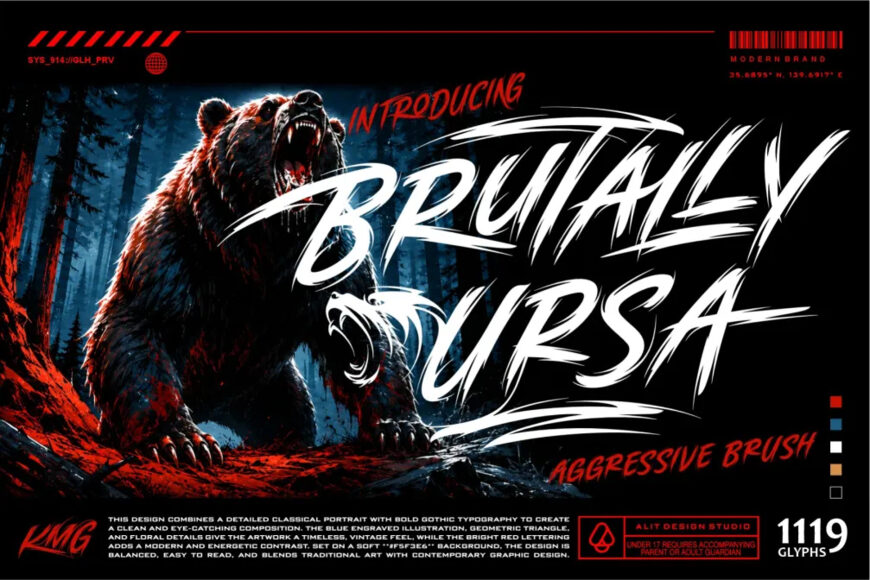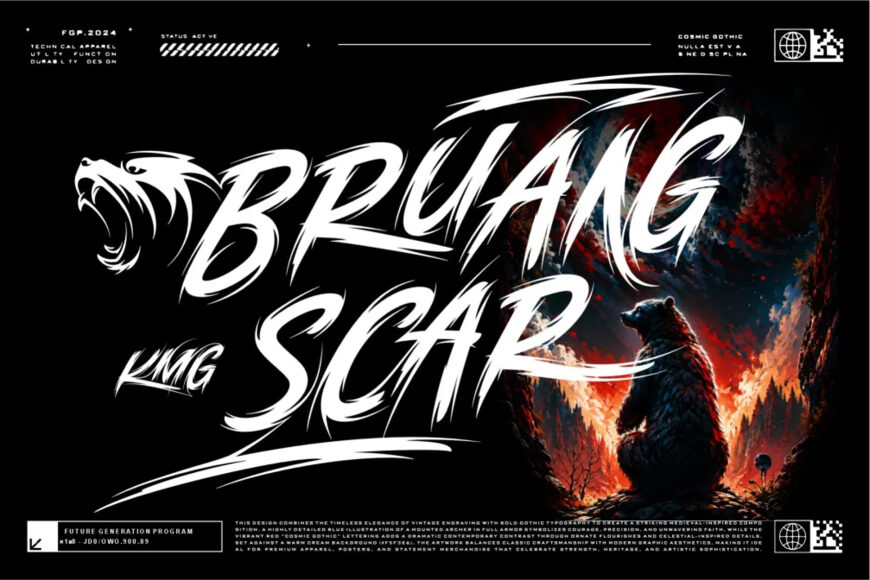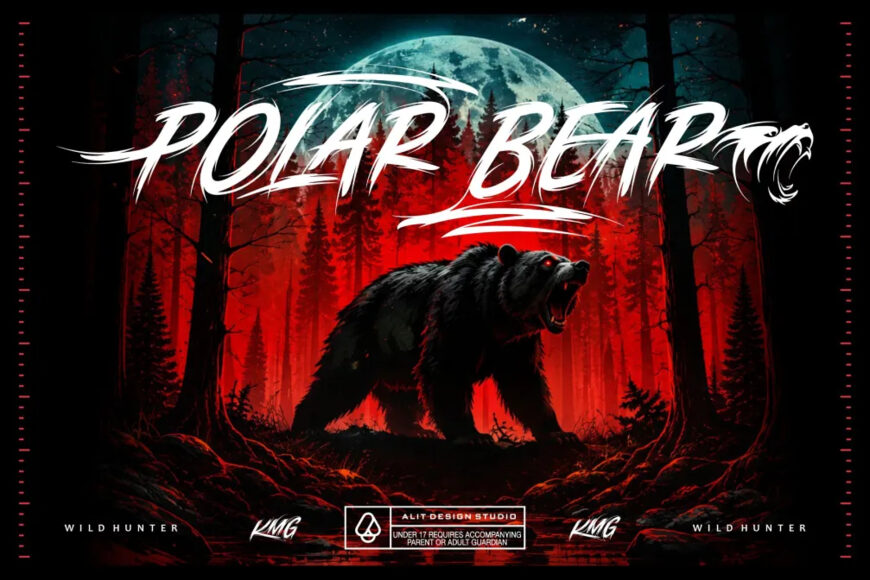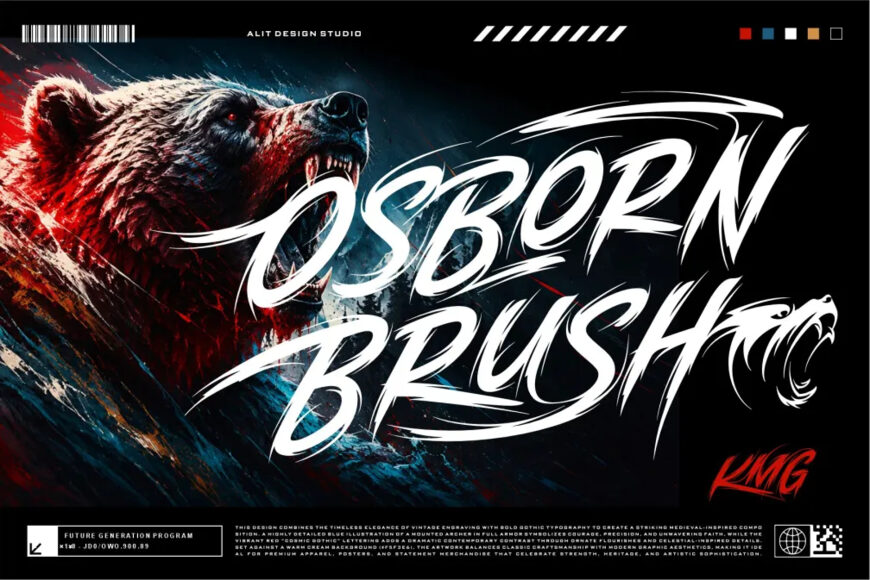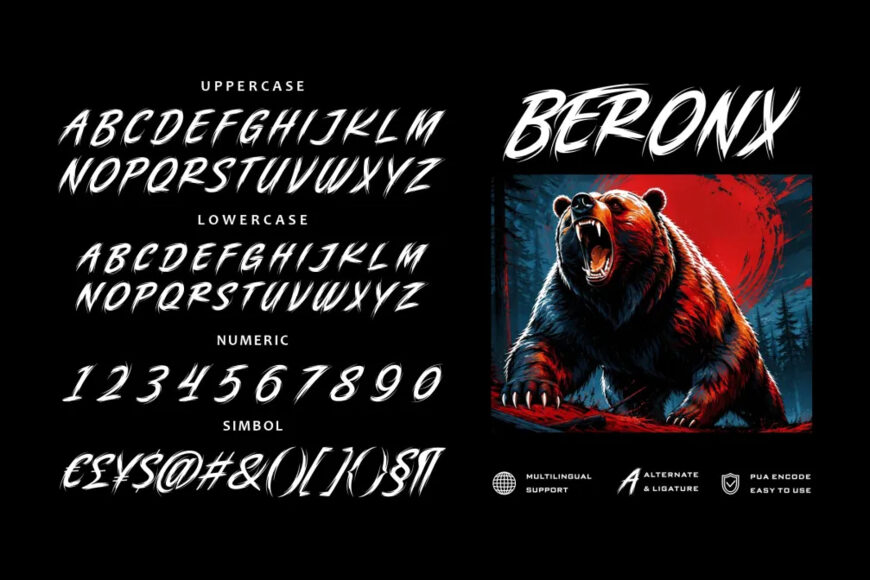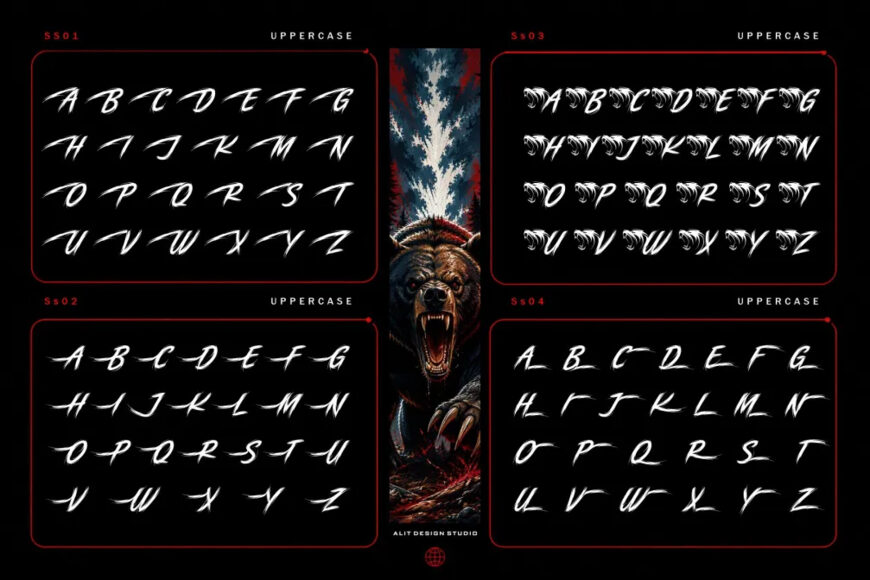
Brutally Ursa Font
Unleash the beast in your next design project with Brutally Ursa, a wildly dynamic and aggressive brush typeface. Hand-crafted with fast, bold strokes and authentic dry-brush textures, this font is designed to deliver raw energy and unapologetic impact. Whether you are aiming for a gritty streetwear aesthetic, intense sports branding, or striking poster designs, Brutally Ursa commands attention.
Brutally Ursa isn’t just about looks; it’s a typographic powerhouse. Packed with an incredible 1,119 glyphs, this typeface offers endless customization possibilities. Perfectly suited for apparel design (t-shirts and hoodies), extreme sports merch, gaming logos, band merchandise, movie titles, and bold advertising campaigns.